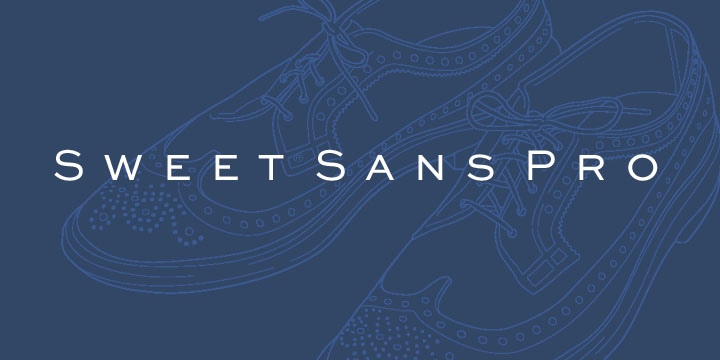
Sweet Sans Pro Font
This Sweet Sans Pro Font is perfect for candy store branding, confectionery packaging designs, sweet bakery materials, dessert restaurant signage, ice cream parlor communications, sugar confection labels, sweet treat marketing, delightful children's brands, charming gift shop materials, and adorable lifestyle applications.
What makes this Sweet Sans Pro Font exciting is its delightful charm that captures the pure sweetness and joyful indulgence of confectionery excellence and sweet treat perfection. The font features gentle letterforms with sweet characteristics that convey delicious appeal, sugary delight, and confectionery sophistication. Its sweet character and candy-inspired design make it ideal for brands seeking to communicate confectionery excellence, sweet indulgence, and delightful satisfaction in food and lifestyle markets.
The Sweet Sans Pro Font family includes thin through black weights with sweet alternates, confectionery variants, and delightful flourishes. This comprehensive sweet font family provides designers with charming typographic tools to create delicious compositions while maintaining the confectionery character essential for sweet treat brands and delightful communications.
Confectionery companies and sweet treat businesses consistently choose Sweet Sans Pro Font Free Download for projects requiring authentic sweet appeal and confectionery credibility. This font's distinctive delightful character perfectly captures the sugary excellence and sweet satisfaction that resonate with audiences who appreciate candy culture, sweet indulgence, and brands that embody confectionery craftsmanship and delicious quality.
The delicious construction of Sweet Sans Pro Font showcases charmingly designed letterforms with sweet proportions that ensure exceptional appeal across all confectionery applications. Its sugary appearance and delightful character create memorable impressions while maintaining the readability necessary for effective sweet communication and confectionery materials.
Professional designers appreciate how Sweet Sans Pro Font brings immediate confectionery authenticity and sweet charm to brand communications. The font's delightful nature allows organizations to communicate sugary excellence and sweet satisfaction while maintaining the professional quality necessary for effective positioning in confectionery and sweet lifestyle markets.
The irresistible appeal of Sweet Sans Pro Font makes it particularly effective for brands emphasizing sweet indulgence, confectionery craftsmanship, and delightful experiences. Its charming character resonates strongly with audiences who appreciate candy culture, sweet treats, and brands that represent the pure joy and sugary perfection of confectionery excellence.
Whether developing branding for artisan confectioneries or creating materials for sweet lifestyle brands, Sweet Sans Pro Font Free Download provides the delightful typographic foundation that sweet brands need to communicate their confectionery excellence, sugary charm, and the delicious satisfaction that defines sweet treat perfection and confectionery achievement.